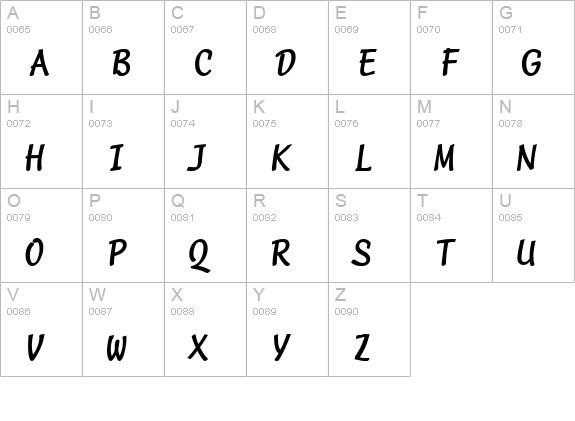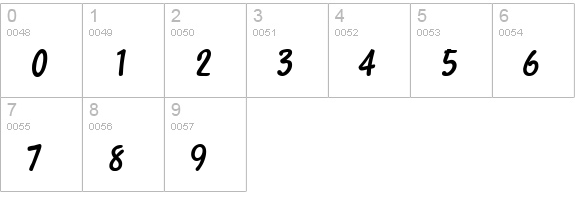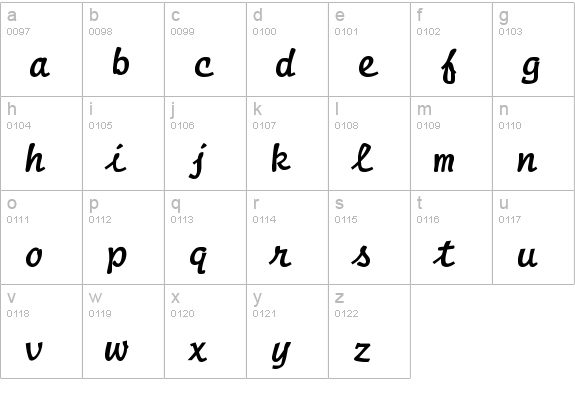
Manuscript Bold is a strong, high-contrast variant in the Manuscript typeface family \xE2\x80\x94 well suited to headlines, attention-grabbing titles, and strong calls-to-action.
Introducing Manuscript Bold, a sophisticated and elegant font that exudes confidence and professionalism. With its bold and commanding presence, this typeface is perfect for making a statement in your designs. Manuscript Bold is meticulously crafted with attention to detail, resulting in a font that is both visually striking and highly legible. Its clean lines and strong strokes create a sense of authority, making it ideal for headlines, titles, and logos. This versatile font is suitable for a wide range of projects, from corporate branding to editorial designs. Whether you're designing a magazine spread or creating a sleek website, Manuscript Bold will bring a touch of sophistication and sophistication to your work. And the best part? Manuscript Bold is completely free! Yes, you read that right. This incredible font is freely available to download at FontsMarket.com. Now you can enhance your designs with a high-quality font without breaking the bank. So why wait? Elevate your design game with Manuscript Bold and make a lasting impression. Download it today at FontsMarket.com and unleash your creativity with this stunning, freely available font.